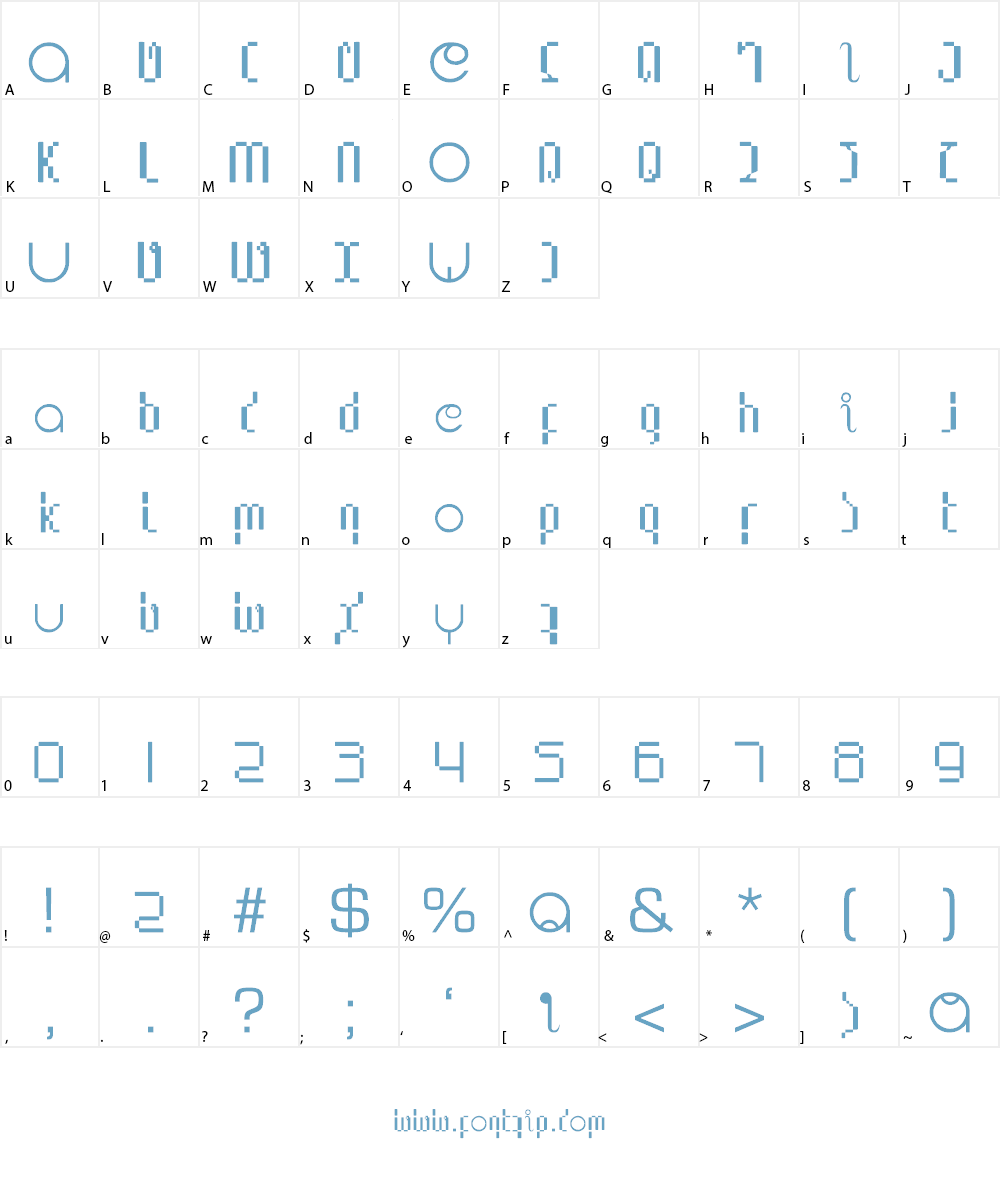
Lupanesque mixqueezed is a combination of rounded vowels and square squeezed consonants from Lupanesque fonts. In lower case all consonants are bigger than vowels.